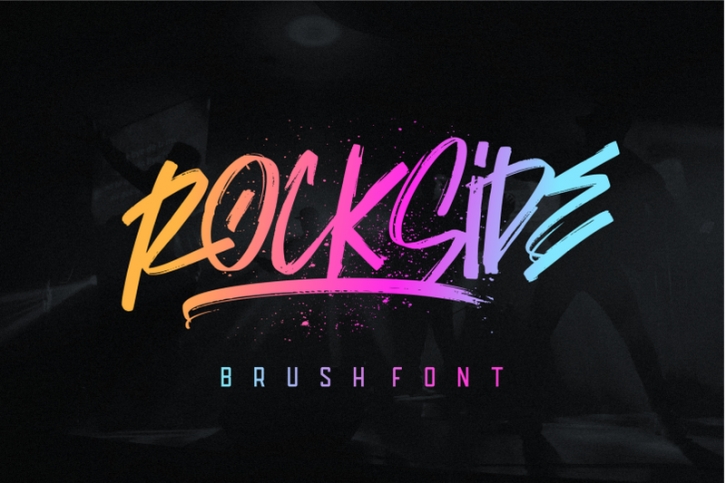
Introduce the Rockside Brush font with a texture brush designed to give the impression of urban, young, and sloppy. This font is suitable for brands, apparel, clothing, logos and others. This font is also available for swashes.
- Swashes
- Include A lot of alternates